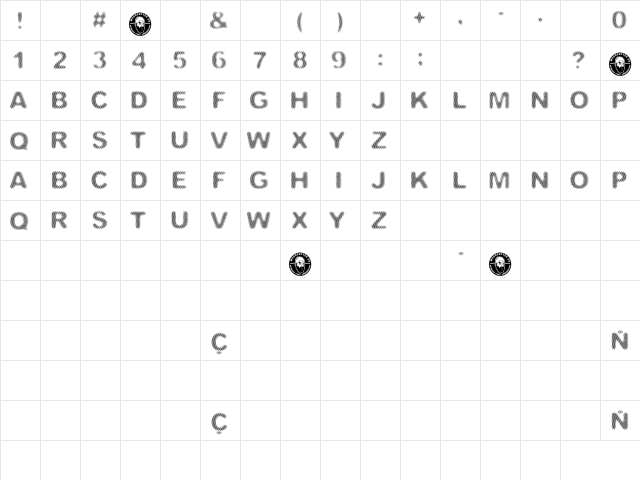
American Offset Regular
| Designer | Woodcutter Manero |
Design Context for American Offset Typeface
American Offset offers clean, dependable letterforms without strong stylistic allegiance, making it a practical choice for designers who need flexibility.